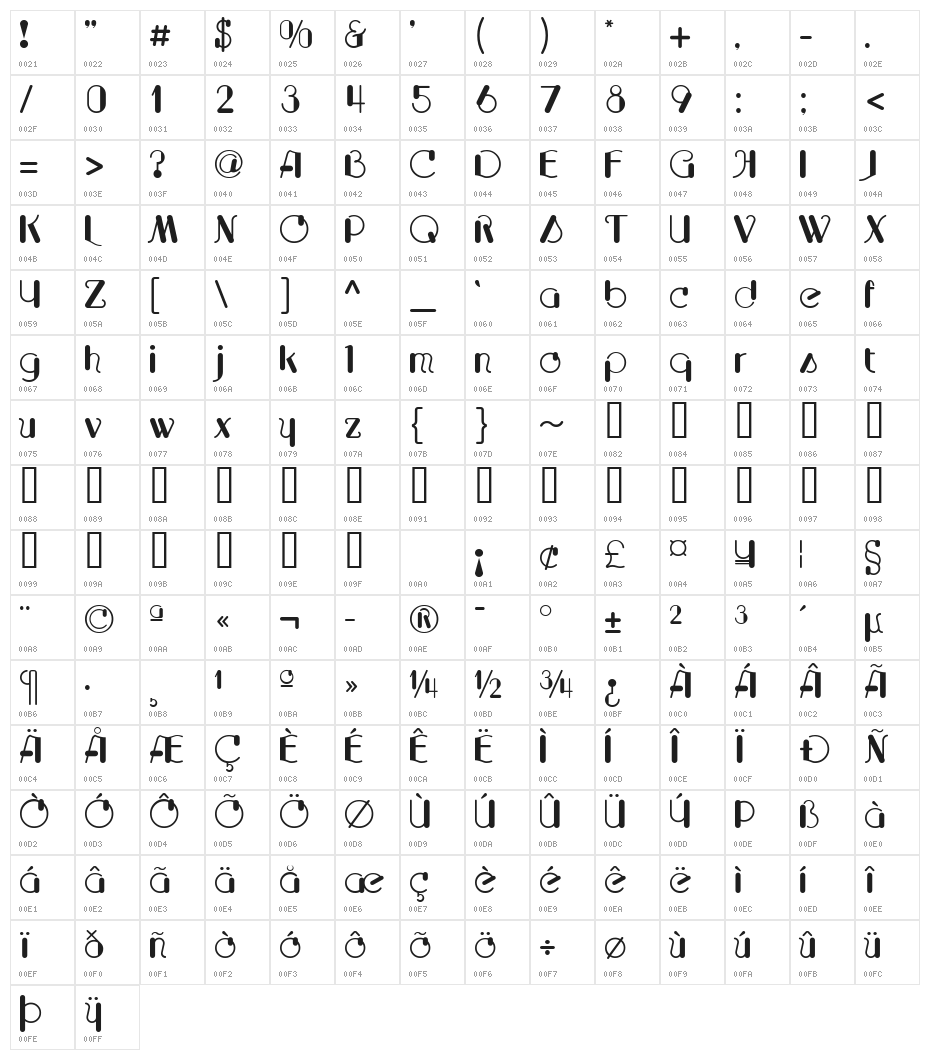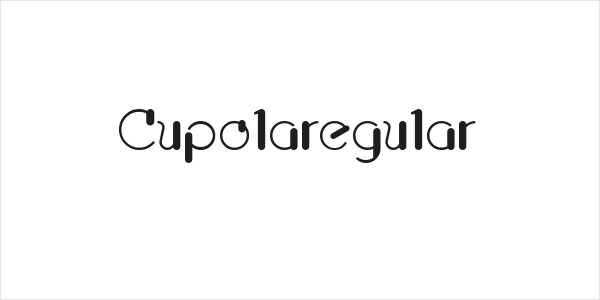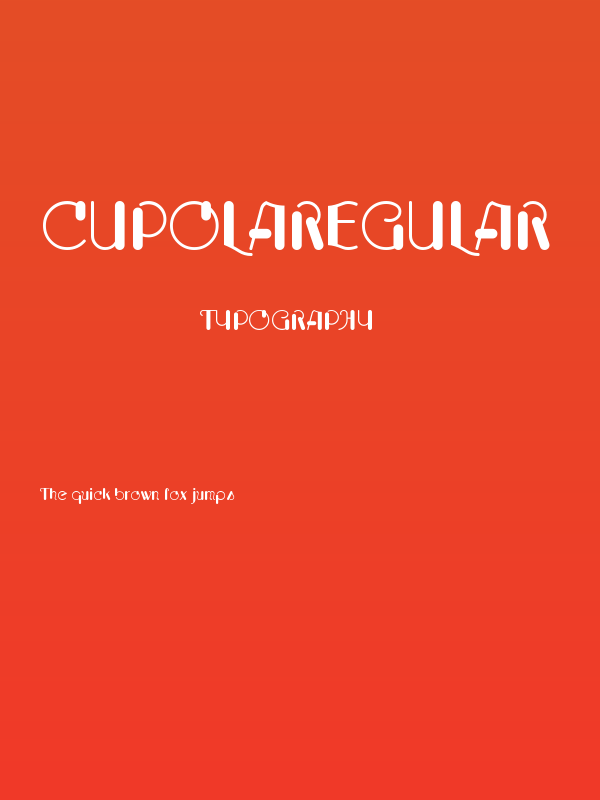
Cupolaregular Font
Cupolaregular Description
This font features a unique blend of modern and decorative styles, characterized by its bold, flowing strokes and distinctive curves. The uppercase letters exhibit a playful yet sophisticated design, with some characters incorporating unexpected angles and loops. The lowercase letters maintain a consistent style, offering a harmonious balance between readability and artistic flair. Numbers and special characters are crafted with the same attention to detail, ensuring a cohesive appearance across all text. The font's overall aesthetic is both eye-catching and versatile, making it suitable for a variety of creative applications.